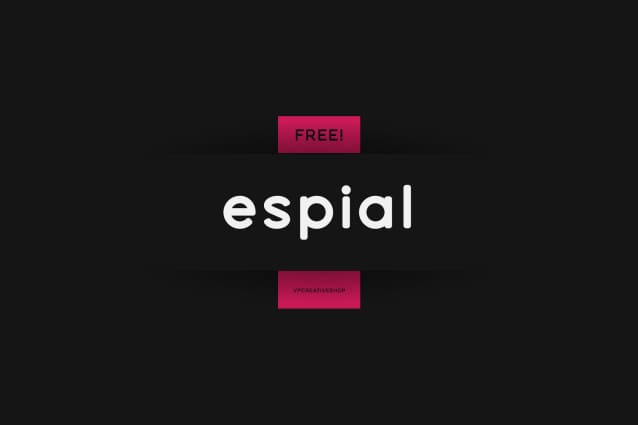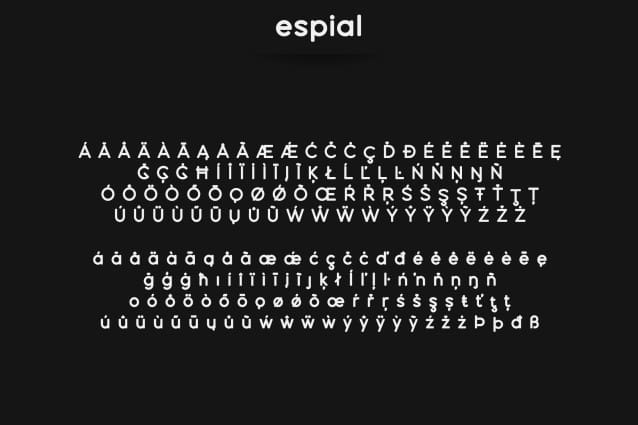
Espial Font
Espial Font, for crafting amazing typographic designs, look no further than Espial! This timeless typeface is packed with 36 font styles featuring 87 languages and beautiful ligature glyphs to give your words a truly unique touch. Whether you’re going for modern or vintage vibes – the possibilities are endless!